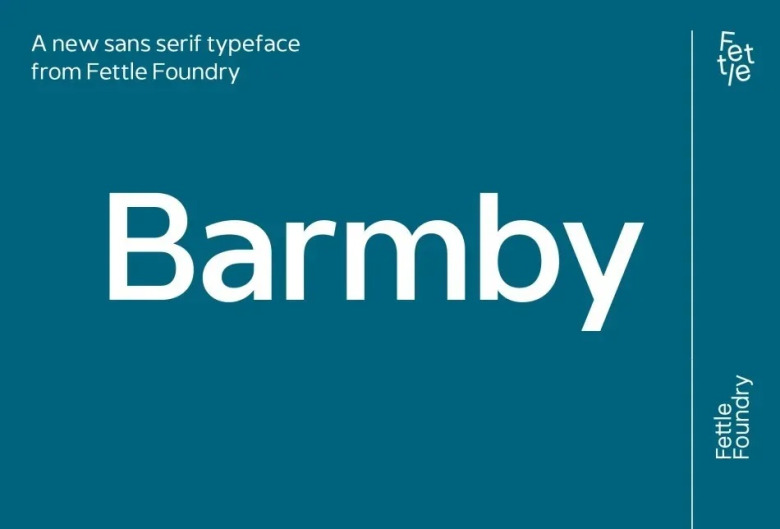
Barmby Font
Barmby Sans Serif Font Family is an eccentric neo-grotesk typeface, bursting with character and individualistic features. Letterform personalities have been optimised for small pixel size, high x-height, and maximized white space on all uses. Barmby would work well as a brand font, its flexibility in form Currently with over 600 glyphs, and covering a full Latin S character set bar the kitchen sink; Barmby supports all major latin languages.
The open type features are: alternatives, combining diacritics and titling caps, special numbers of small size in one level above or below the common baseline (superior and superior), fractions, ordinal. Hits these type usage publi!
Barmby Sans Serif Font Family